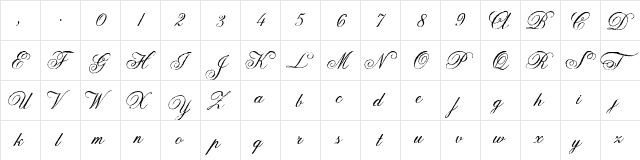
Anglia Olde Concise Regular
Design Context for Anglia Olde Concise Typeface
Anglia Olde Concise is a composed and adaptable typeface that performs quietly and consistently across a wide range of design contexts.